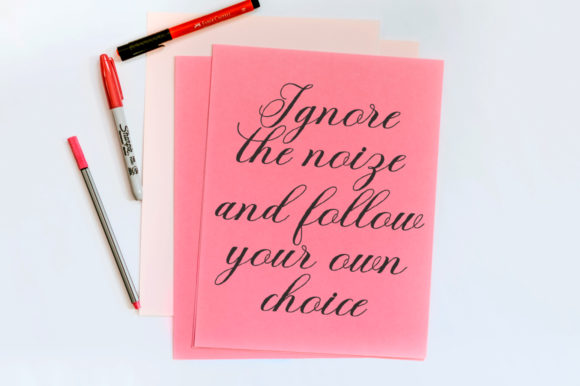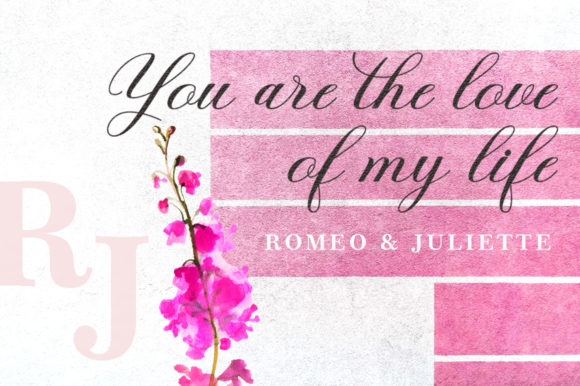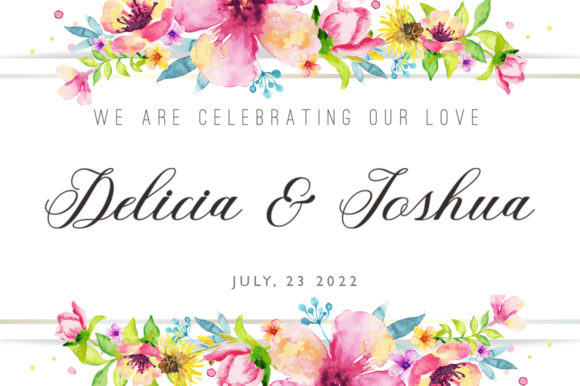
About Milania Font
Milania is a romantic, soft hand-lettered script. The playful rounded characters make it the perfect font for creating stunning crafts. Milania comes packed gorgeous ligatures that will allow you to add a decorative touch within seconds. Get inspired by its authentic feel and use it to create gorgeous wedding invitations, beautiful stationary art, eye-catching social media posts, and cute greeting cards.